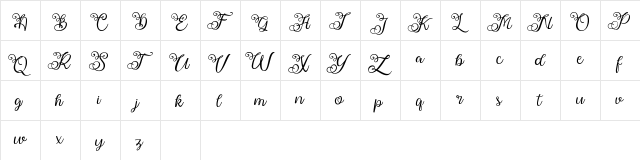
Ballita Script Regular
Design Context for Ballita Script Typeface
Ballita Script flows with the natural rhythm of handwritten lettering, making it ideal for designs that call for warmth and personal expression.
Font Pairing: Combine Ballita Script with a simple geometric sans for maximum contrast — the tension between flowing curves and clean structure is a classic typographic pairing.
Pro Tip: Use Ballita Script for short runs of text — names, titles, or taglines. Extended body copy in script faces tires the eye quickly.